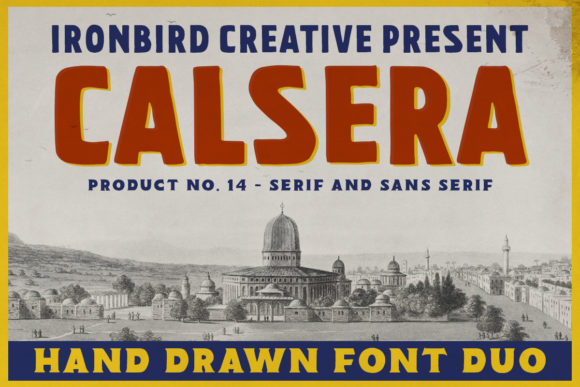
Introducing Calsera Font: The Ultimate Cool, Bold, and Vintage Styled Display Font
Are you looking for a font that can add a touch of coolness, boldness, and vintage style to your design projects? Look no further than Calsera Font! This amazing display font is perfect for labeling, branding, logos, and more. In this article, we’ll dive into the features and benefits of Calsera Font, and explore how it can elevate your designs to the next level.
What is Calsera Font?
Calsera Font is a carefully crafted display font that exudes a sense of coolness, boldness, and vintage style. Its unique design makes it perfect for a wide range of applications, from labeling and branding to logos and advertising. With Calsera Font, you can add a touch of sophistication and elegance to your designs, while also conveying a sense of playfulness and creativity.
Key Features of Calsera Font
- Cool and Bold Design: Calsera Font features a bold and eye-catching design that’s sure to grab attention.
- Vintage Style: The font’s vintage style gives it a unique and distinctive look that’s perfect for designs that require a touch of nostalgia.
- Highly Versatile: Calsera Font can be used for a wide range of applications, from labeling and branding to logos and advertising.
- Easily Readable: Despite its bold design, Calsera Font is highly readable, making it perfect for use in a variety of contexts.
Benefits of Using Calsera Font
So why should you choose Calsera Font for your design projects? Here are just a few benefits of using this amazing display font:
- Adds a Touch of Sophistication: Calsera Font can add a touch of sophistication and elegance to your designs, making them stand out from the crowd.
- Perfect for Branding and Logos: The font’s bold and vintage style makes it perfect for use in branding and logos, helping to create a lasting impression on your target audience.
- Increases Readability: Despite its bold design, Calsera Font is highly readable, making it perfect for use in a variety of contexts, from labeling to advertising.
- Versatile and Flexible: Calsera Font can be used in a wide range of applications, making it a versatile and flexible addition to your design toolkit.
How to Use Calsera Font in Your Design Projects
- Choose the Right Size: Calsera Font is a bold and eye-catching font, so make sure to choose the right size for your design. A larger size can be used for headings and titles, while a smaller size can be used for body text.
- Experiment with Colors: Calsera Font looks great in a variety of colors, so don’t be afraid to experiment and find the perfect color for your design.
- Pair it with Other Fonts: Calsera Font can be paired with other fonts to create a unique and visually appealing design. Try pairing it with a clean and simple font for a striking contrast.
FAQs About Calsera Font
- What is Calsera Font?: Calsera Font is a cool, bold, and vintage styled display font perfect for labeling, branding, logos, and more.
- Can I use Calsera Font for my branding and logos?: Absolutely! Calsera Font is perfect for use in branding and logos, and can help create a lasting impression on your target audience.
- Is Calsera Font easy to read?: Yes, despite its bold design, Calsera Font is highly readable, making it perfect for use in a variety of contexts.